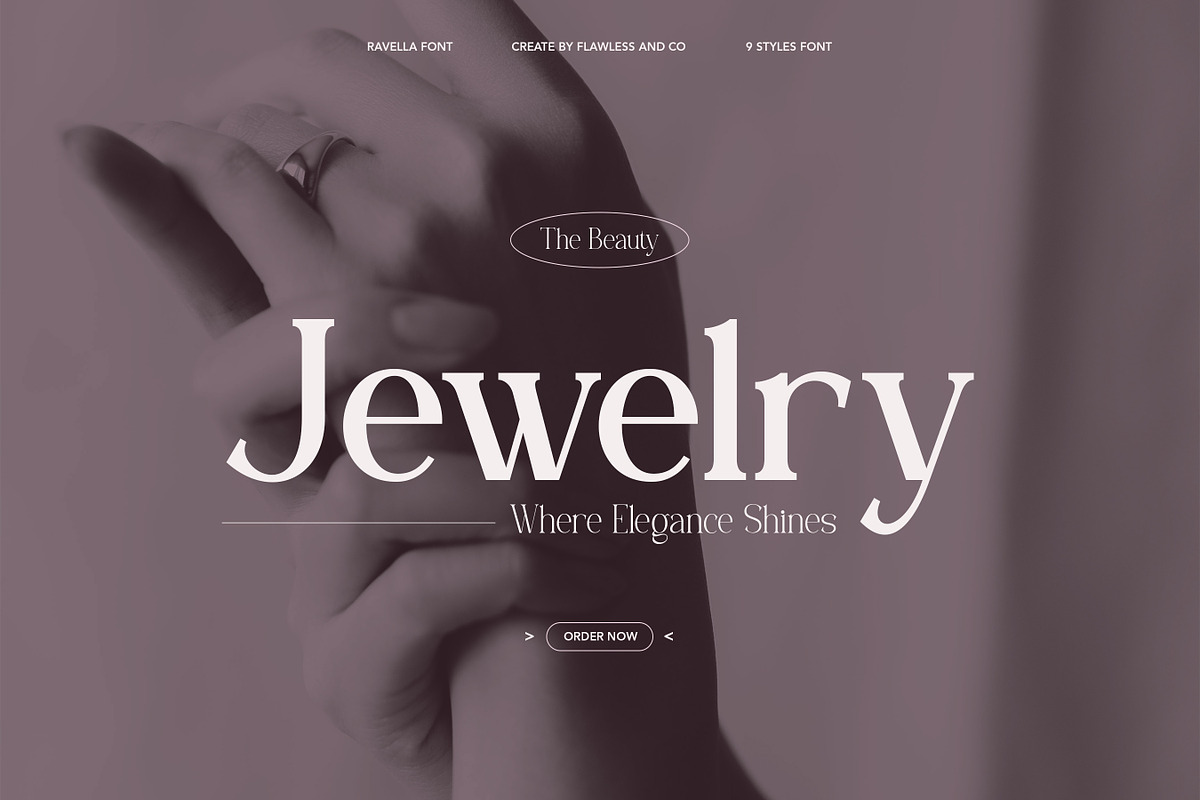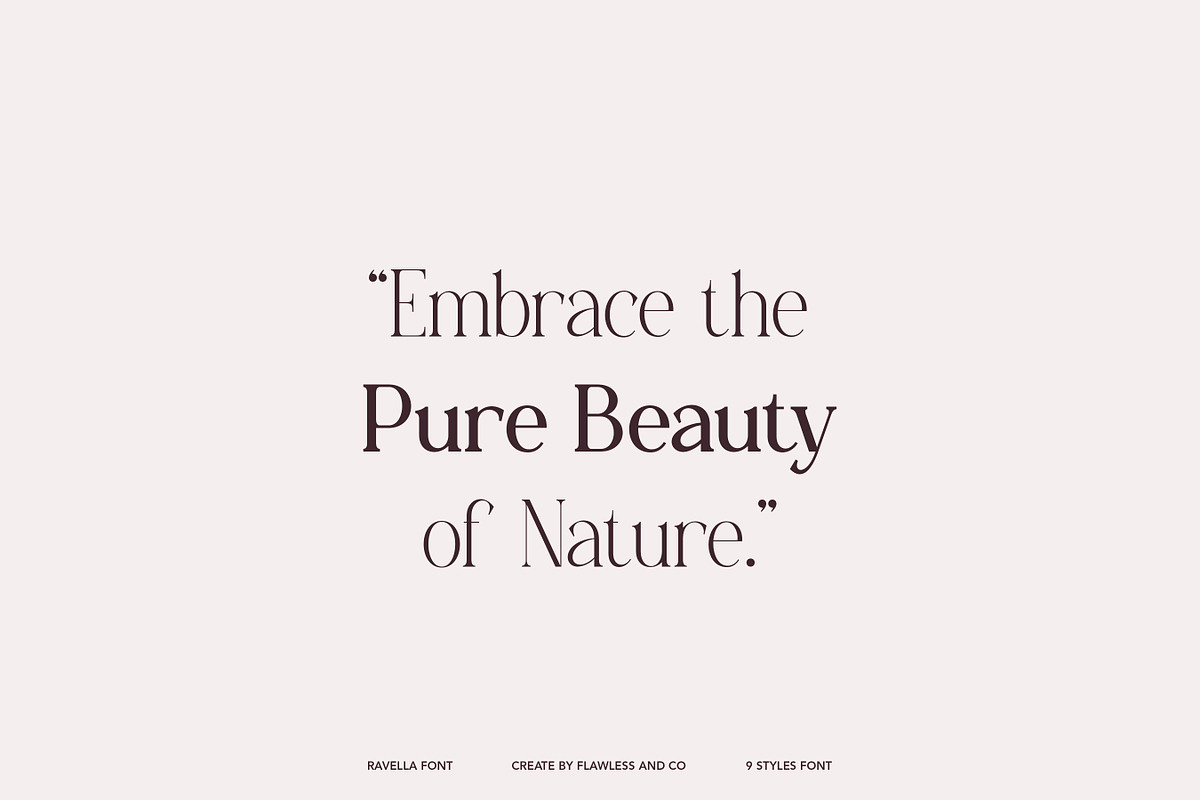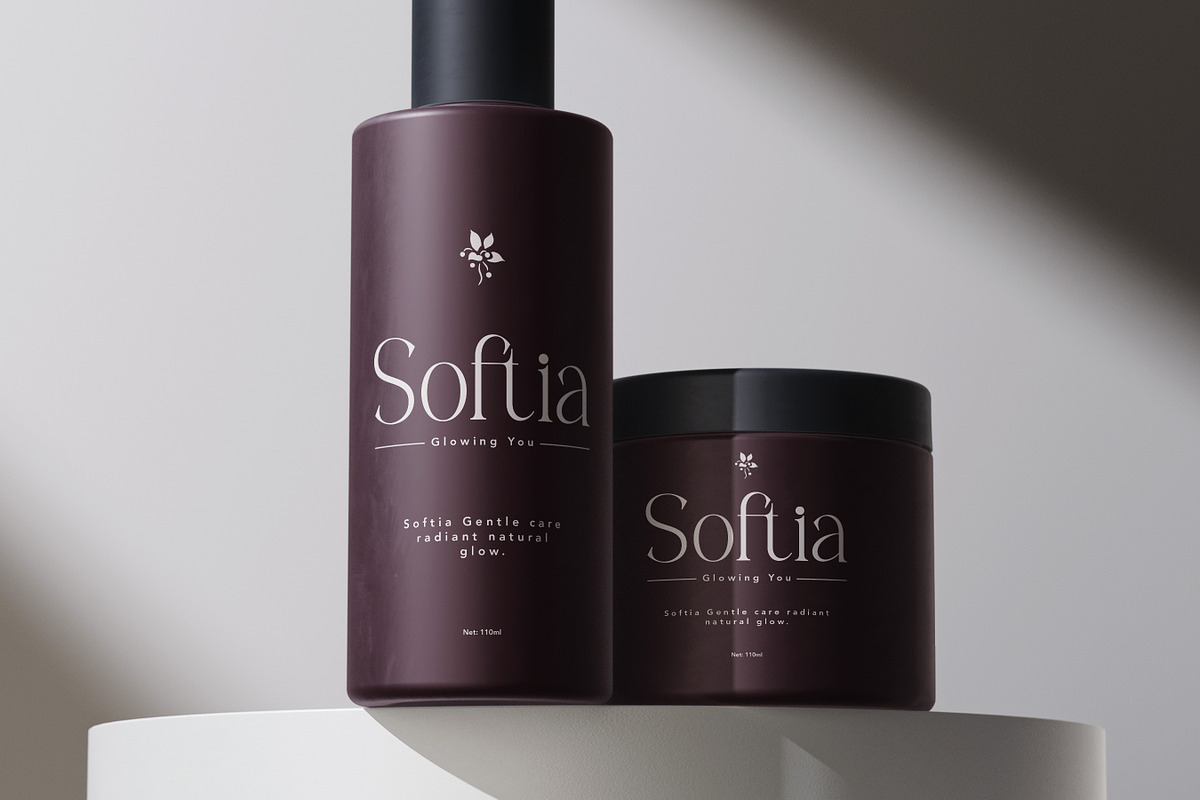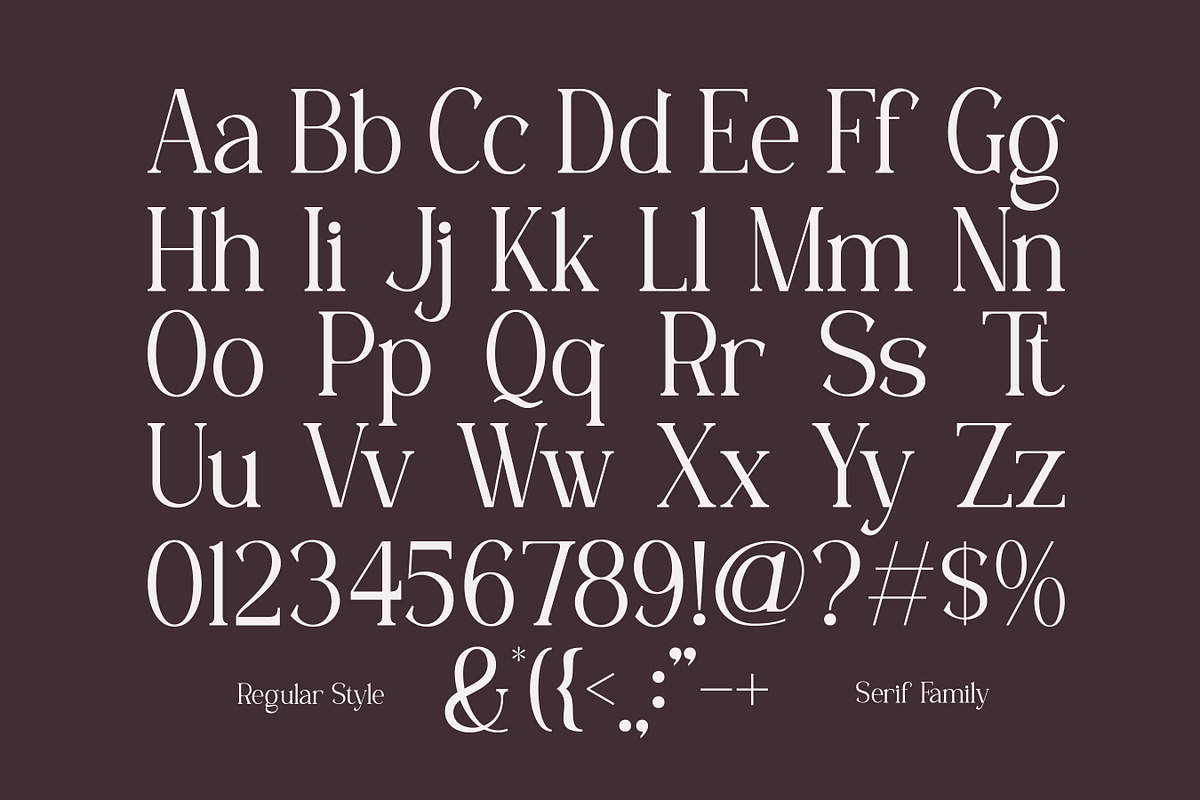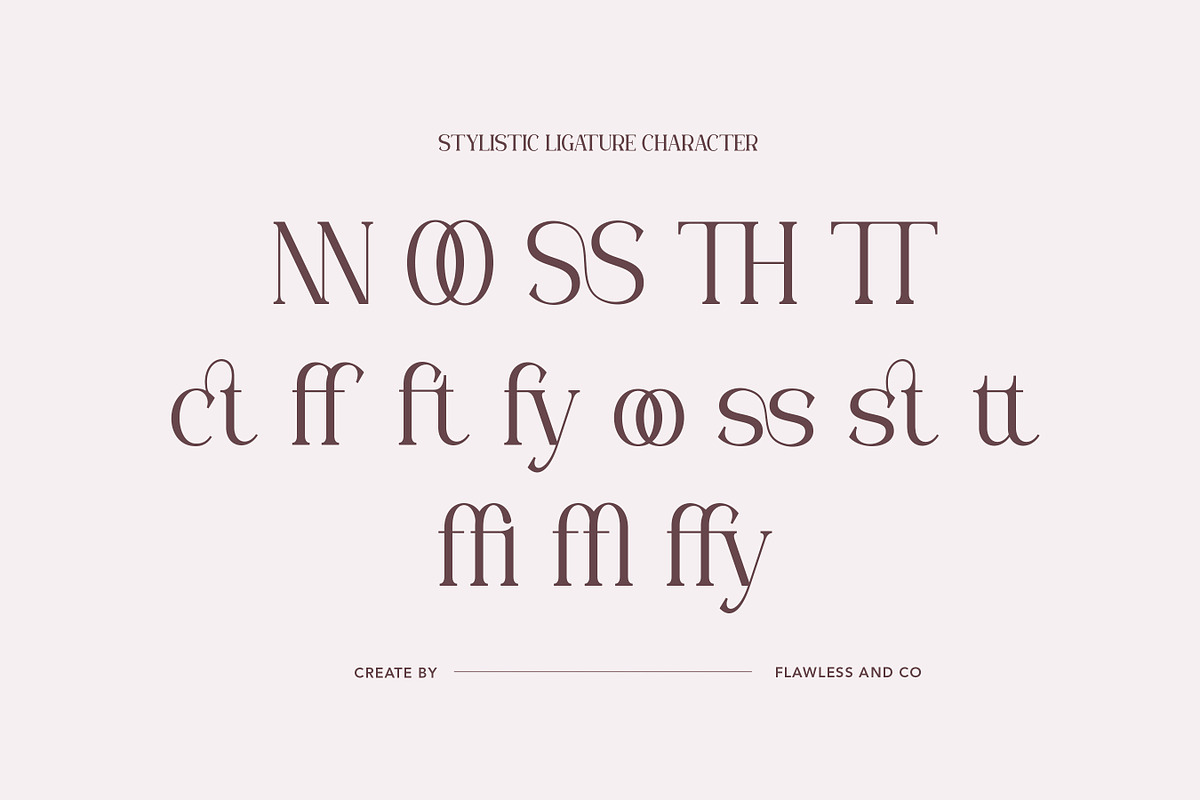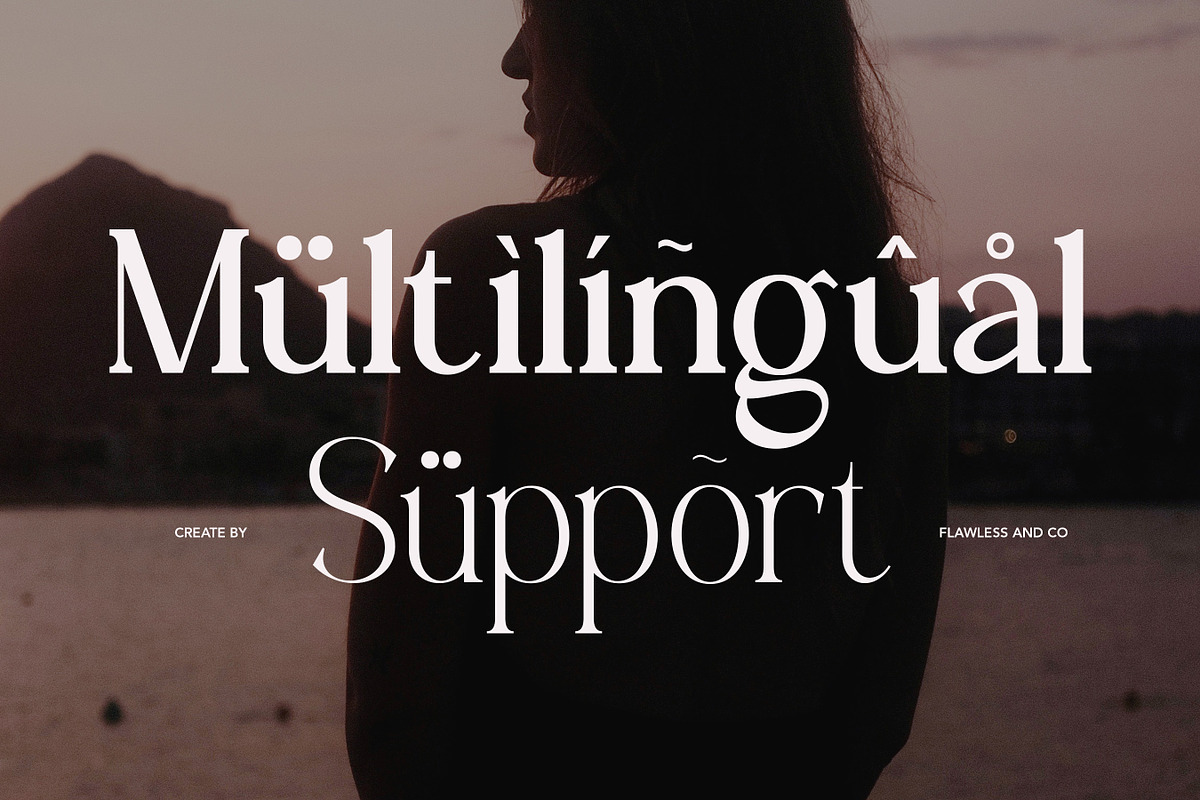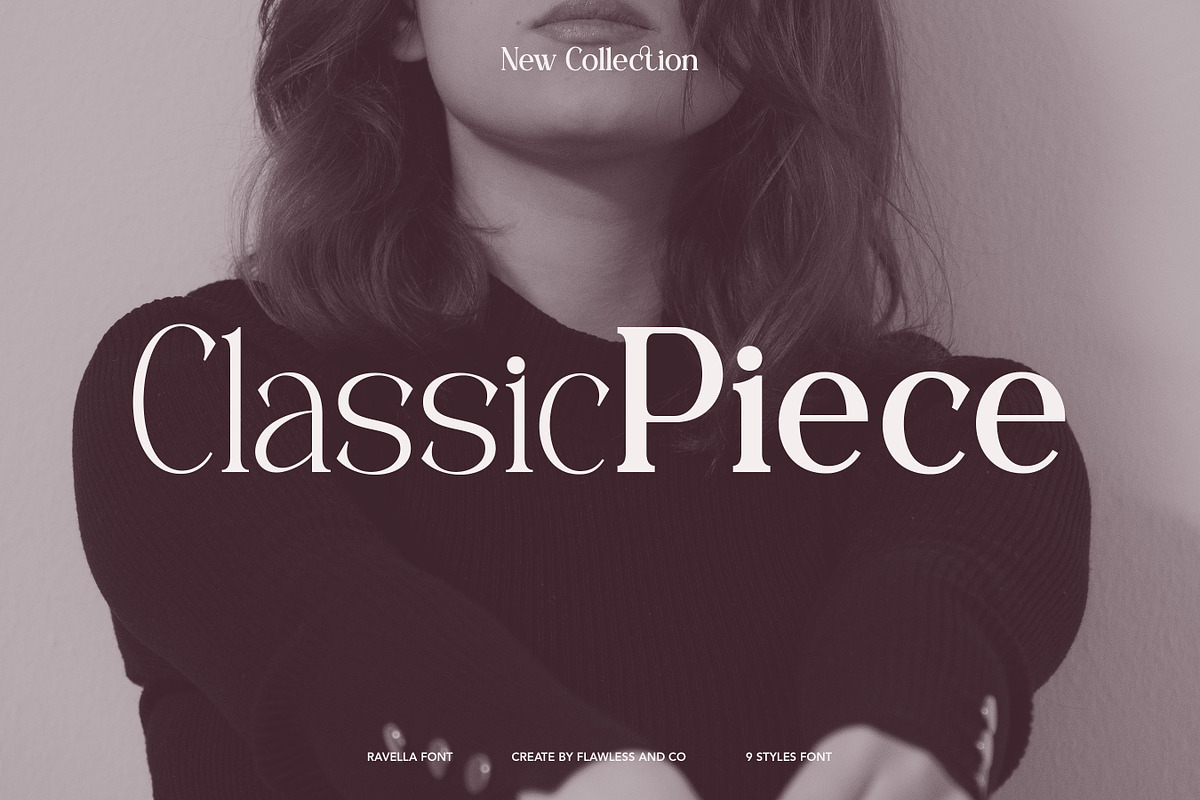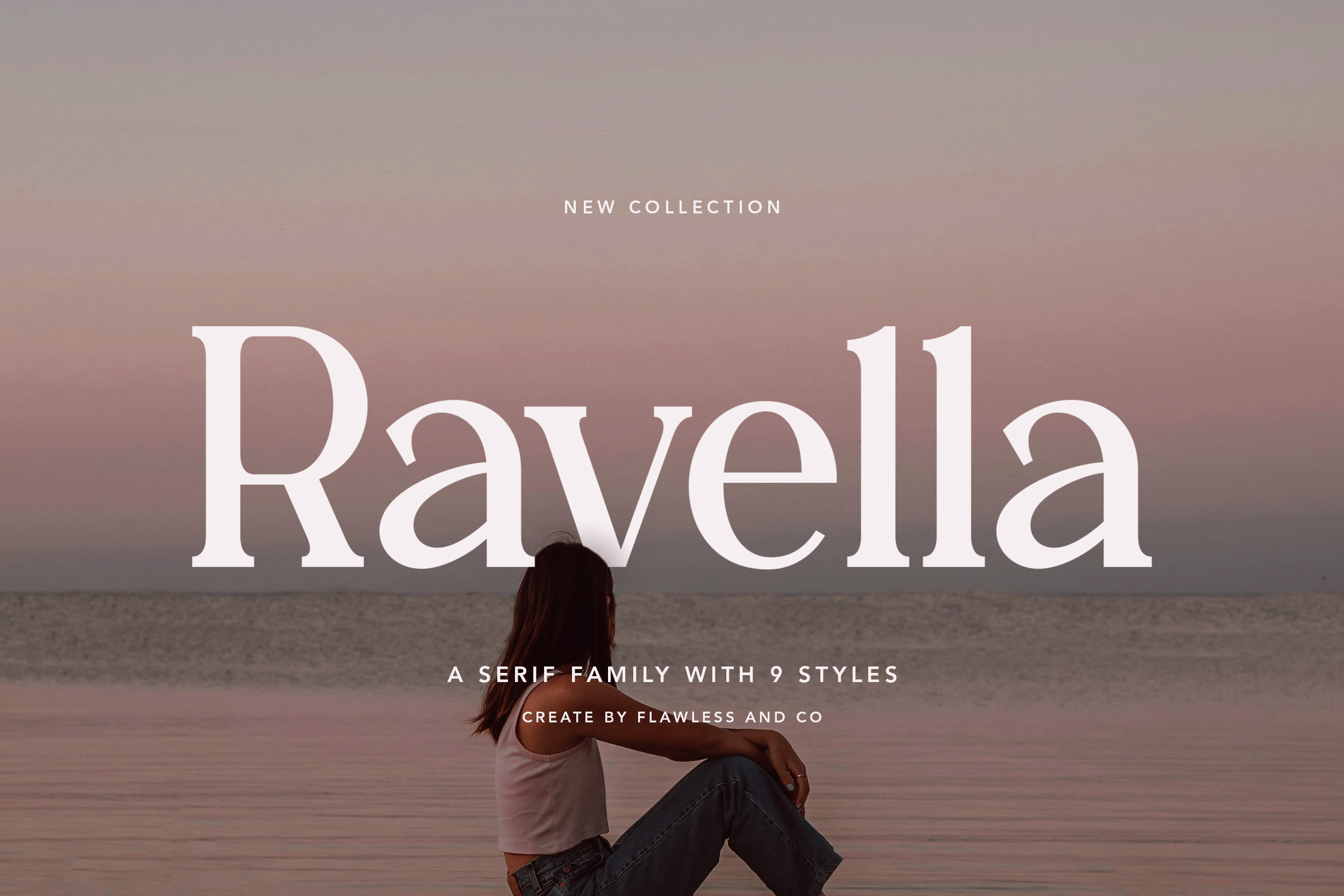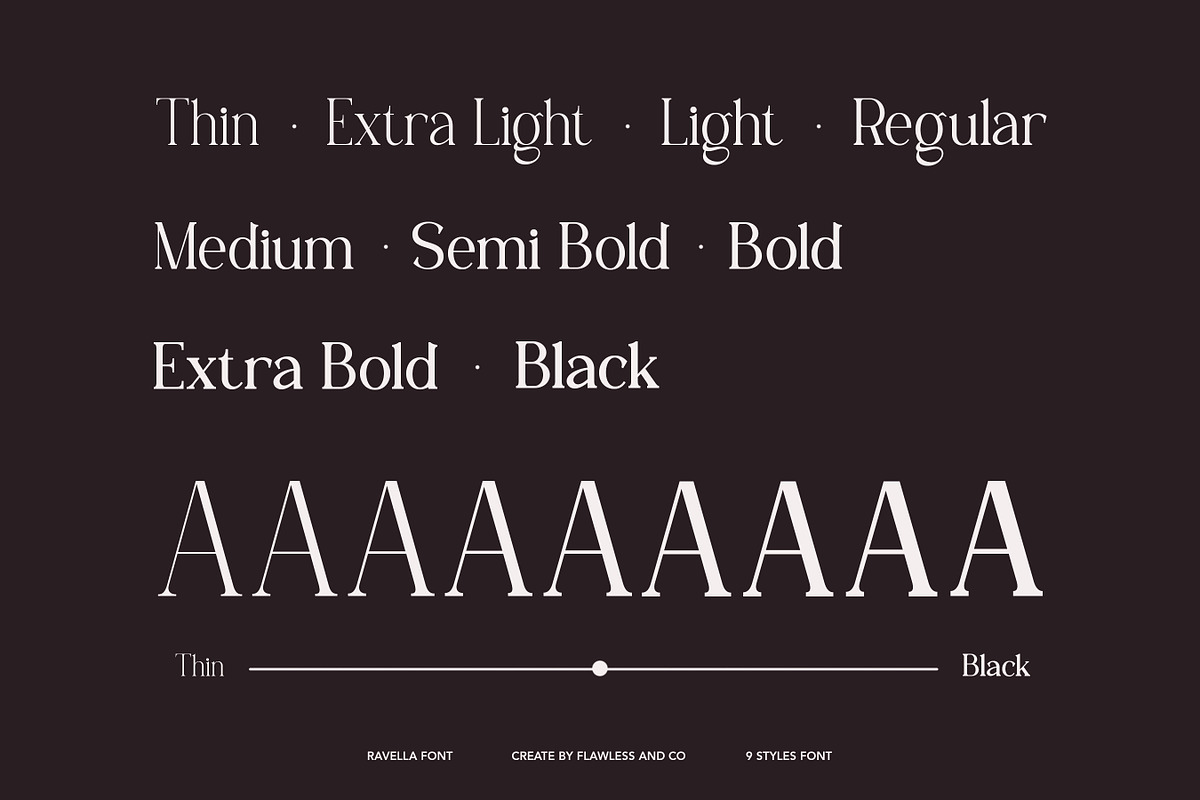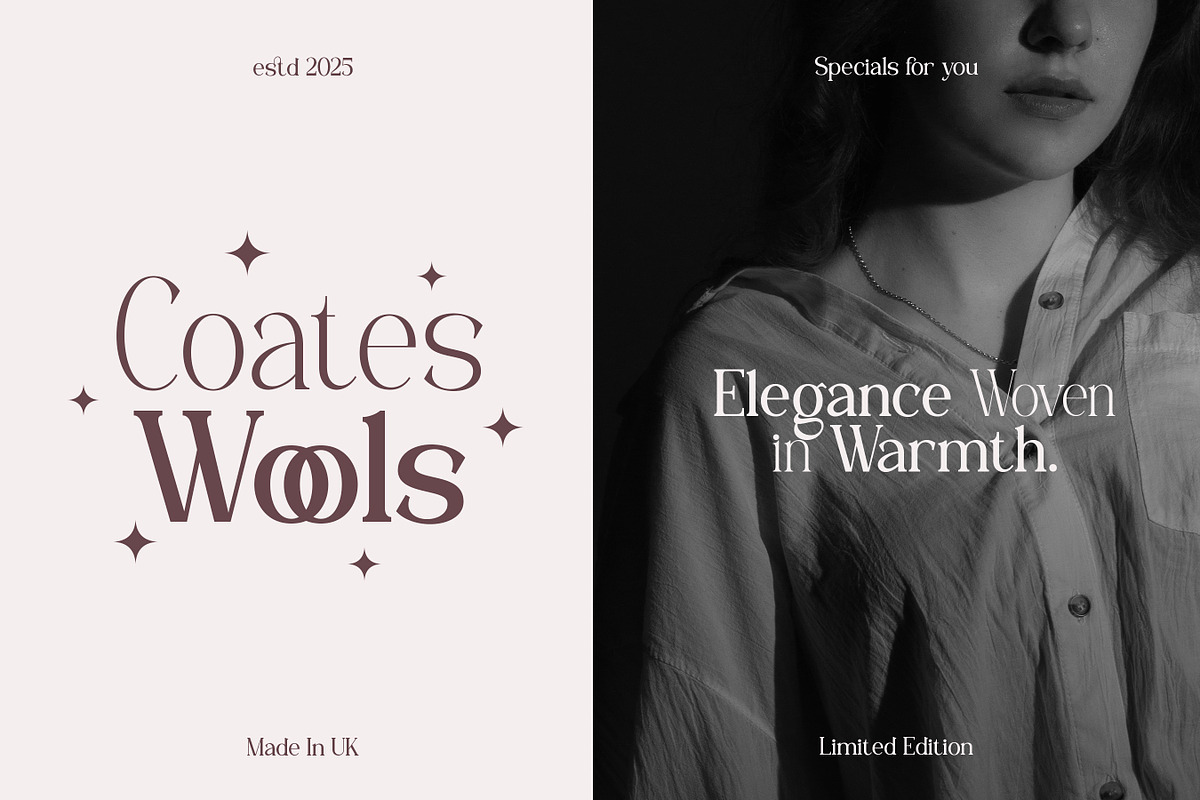
Ravella - Family Serif Font
Ravella - Serif Family Font
Ravella is a sophisticated serif family that blends classic charm with modern sensibility. Designed with graceful curves and balanced contrast, Ravella offers a versatile range of 9 styles — perfect for designers who seek both beauty and function in their typography. Each weight carries a sense of refinement, making Ravella ideal for creating luxurious branding, editorial layouts, and elegant headlines. Whether used in bold titles or delicate body text, Ravella ensures a consistent and captivating visual presence across every project.
Who Should Use Ravella?
Ravella is designed for creatives, brands, and designers who value timeless elegance and refined typography.
It’s the perfect choice for:
- Luxury brands seeking a sophisticated and memorable identity
- Editorial designers creating high-end magazines, books, and journals
- Creative studios looking for versatile serif options across multiple weights
- Fashion and lifestyle labels that want a modern yet classic visual tone
- Designers and agencies developing logos, packaging, and premium brand materials
A Must-Have Font for "Brand and Logo" Creators and Designers
Ravella is a must-have typeface for those who craft brands with sophistication and timeless appeal.
With its serif family of 9 distinct styles, Ravella offers versatility — from bold statements to delicate details — making it ideal for shaping unique and consistent brand identities. Whether you’re designing luxury logos, editorial titles, or elegant packaging, Ravella brings balance, class, and visual harmony to every project.
Its refined letterforms and polished proportions ensure your designs always look premium, professional, and effortlessly stylish.
Why Choose Ravella for "Brand and Logo" Projects?
Ravella stands out as a timeless serif family crafted to bring elegance, versatility, and balance to brand design. With 9 refined styles, it offers flexibility for creating cohesive visual identities — from bold logo marks to sophisticated editorial headlines. Its classic serif structure with modern proportions makes Ravella adaptable for any branding concept — whether you aim for a high-end luxury feel, a contemporary minimalist tone, or an editorial aesthetic. Each style works seamlessly together, ensuring consistent design language across all platforms.